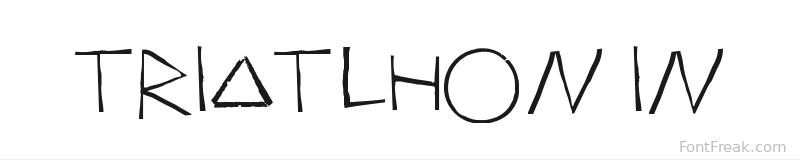
Triatlhon In
Triatlhon In by Galdino Otten Fonts is a unique display typeface that captures attention with its distinctive, hand-drawn aesthetic. This font features irregular stroke weights and a playful contrast that gives it an organic feel, making it perfect for projects that require a touch of creativity and whimsy. The spacing between the letters is thoughtfully designed to ensure readability while maintaining a dynamic look, and the decorative elements, such as the triangular accents, add an extra layer of personality to the typeface.
Triatlhon In is versatile and can be effectively used in a variety of design contexts. It excels in creating eye-catching headlines for event posters, particularly for sports or outdoor activities, where its energetic style resonates with the theme. This font also shines in branding for companies looking to convey a fun and approachable image, making it suitable for startups and small businesses. Additionally, it can enhance restaurant menus, giving them a unique flair that draws diners' attention. Content creators will find it valuable for social media graphics and promotional materials, where the goal is to stand out in a crowded feed.
What sets the Triatlhon In font apart is its ability to blend playfulness with functionality, making it an excellent choice for a wide range of applications. With its distinctive visual appeal and free download availability, this font is a fantastic addition to any designer's toolkit, ensuring that your projects remain memorable and engaging.